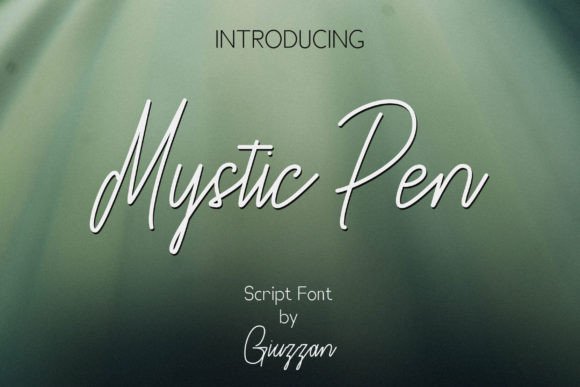
Journey into the world of Mystic Pen, a bewitching script font that casts a spell of elegance and personalization upon your designs. Inspired by the art of calligraphy, Mystic Pen gracefully flows with its fluid strokes, weaving a tale of sophistication and artistry. Versatile in its application, this font is a sorcerer's wand, transforming your creative visions into enchanting realities.
Unleash the power of Mystic Pen for your invitations, logos, and branding, captivating your audience with its mystical aura. Its enchanting curves and flourishes, reminiscent of ancient spells, conjure a sense of wonder and timelessness. Elevate your projects to new heights of creativity and distinction with Mystic Pen, the font that unlocks the secrets of elegance.
Mystic Pen's allure lies in its versatility, bending to your will and adapting seamlessly to a myriad of design styles. Summon the charm of a bygone era by incorporating Mystic Pen into your vintage-inspired creations. Cast a spell of modernity by juxtaposing its graceful lines against clean, minimalist designs. The possibilities are endless, as Mystic Pen seamlessly adapts to your artistic incantations.
Immerse yourself in the boundless creativity that Mystic Pen unlocks, allowing your imagination to run wild as you explore its magical properties. Let your designs dance with the ethereal beauty of this script font, captivating hearts and captivating minds.